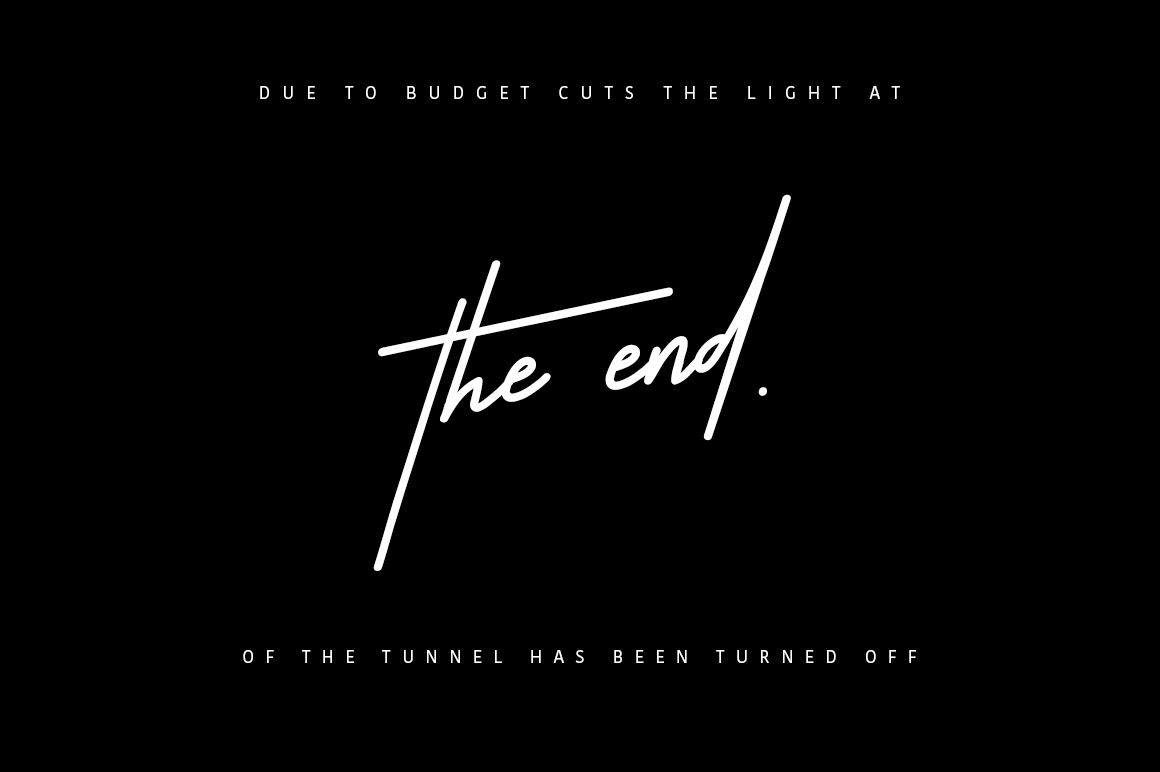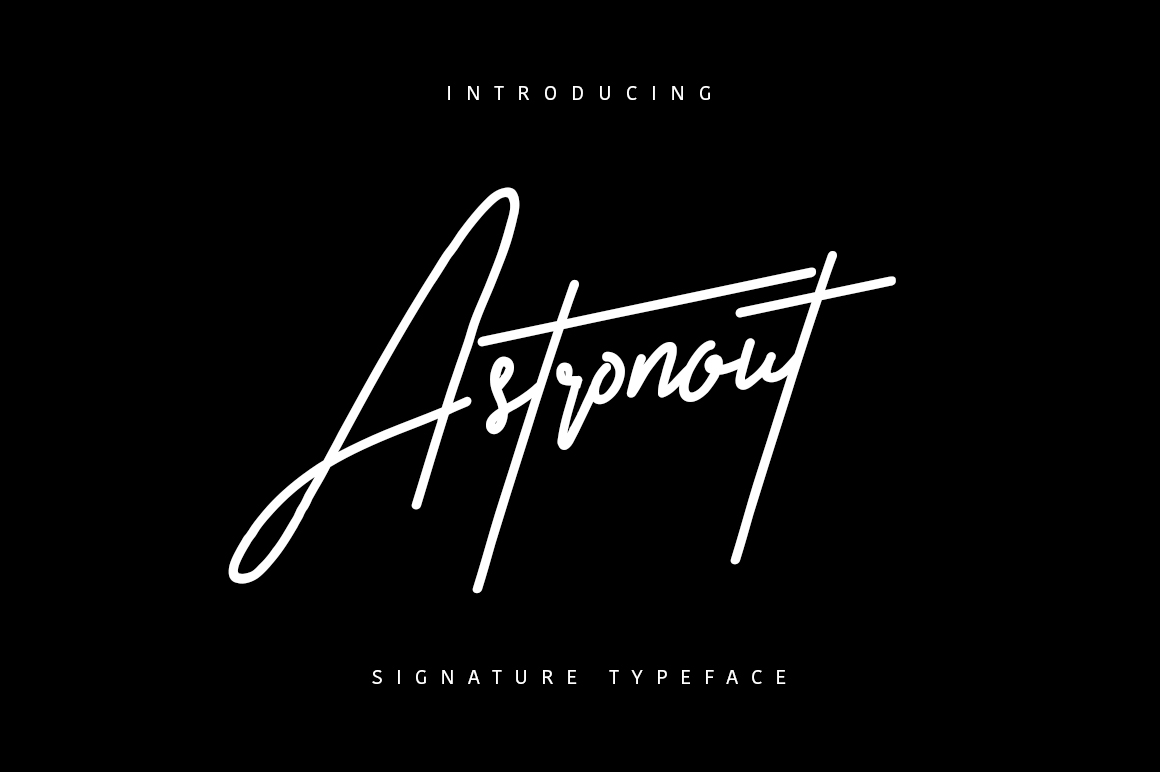
Astronout Signature Typeface Font
Astronout Signature Typeface Font falls under the category of Script typeface family fonts. It is substantially accomplished in brand designing that appears similar to shella script. This typeface shares loads of similarities to the Macbeth font. A well-known American content material cloth material writer took the all right for this fashionable typeface.
And he creates it for them makes the content cloth fabric appearance fashionable. He has taken the concept from madonna font which will become released due to the fact. On this technique, it in fact installation on the designs of the t-shirts printing. The font provides a pure handwritten signature feeling and you cannot judge this font by watching its characters.
Usages Now that you may furthermore be called the new version of the wide display font. At the same time as you understand that now it has contained all the ancient factors with a specific facility. All of the letters which embody this cursive typeface characteristic are top-notch based absolutely certainly sincerely in truth without a doubt in reality smooth format. It is also called the Onyx typeface.
Who designs Astronout Signature Typeface Font? The font is one of the beautiful and useful that belongs to a script typeface family. The designer of this typeface font is Maulana Creative that is good at font creation.